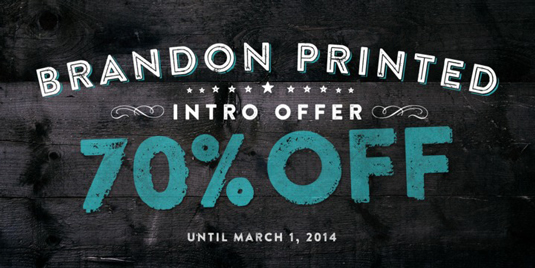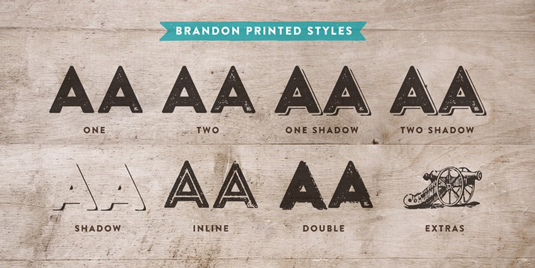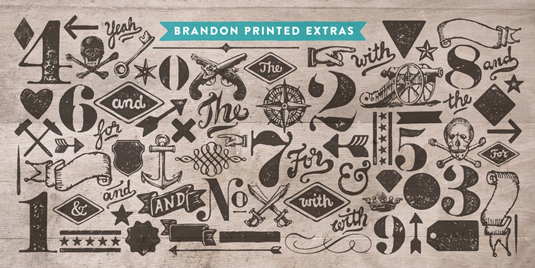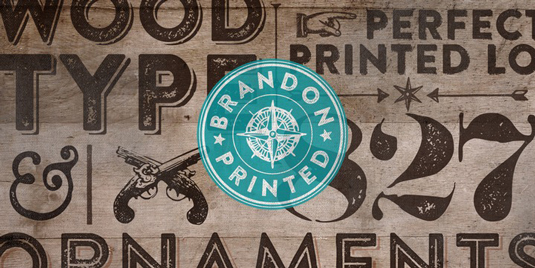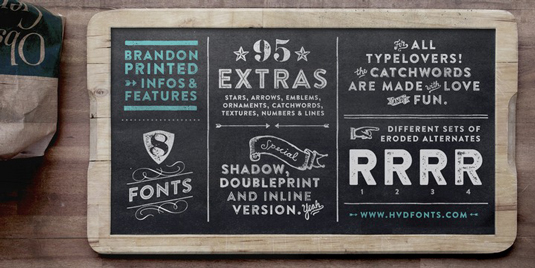
Font of the day: Brandon Printed
Brandon Printed by Hannes von Döhren
Today's font of choice is Brandon Printed by type designer Hannes von Döhren. Featuring an eroded, printed look, the design is based on his popular Brandon Grotesque typeface.
With several different styles like a shadowed version, an inline version and a double printed version you can create a lot of lovely combinations. The Brandon Printed package also contains a set with 95 Extras like arrows, catchwords, stars, emblems numbers & lines.